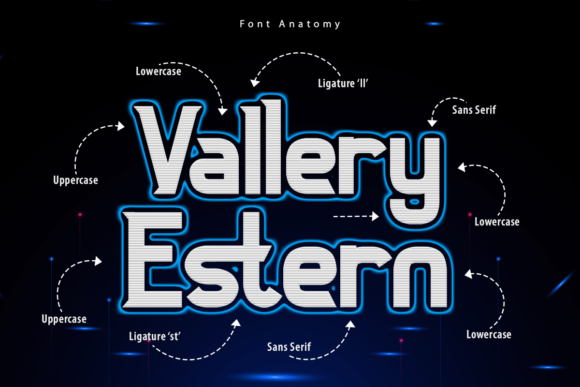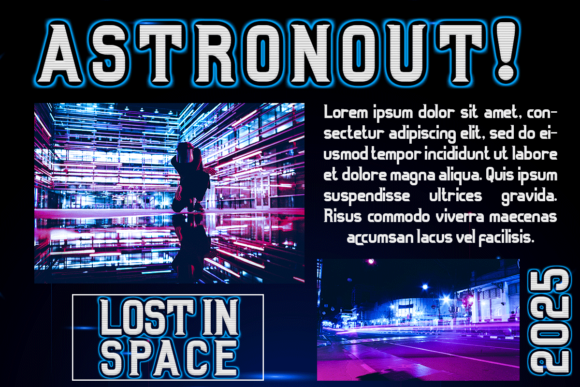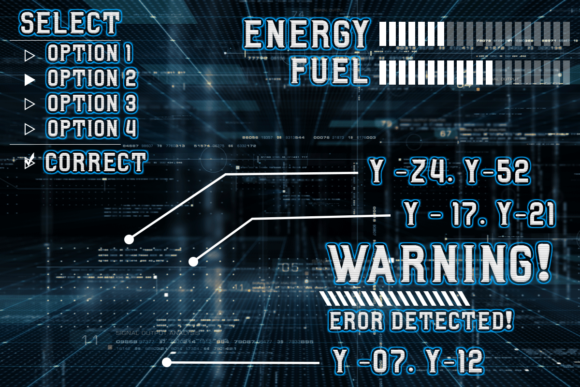
The Power of Typography: Unleashing Your Design Potential
You’re scrolling through your social media feed, and you come across a bold, eye-catching headline that grabs your attention. It’s not just the message that’s striking, but the font itself – a confident, dynamic display font that screams ‘I’m here to make a statement!’. This is the kind of typography that stops you in your tracks and makes you wonder, ‘How can I bring that level of style and sophistication to my own designs?’
Meet the Dexo Font, a cool and bold display font that’s designed to add tons of stylish character to your designs. Whether you’re a seasoned designer or just starting out, this font is a valuable addition to your toolkit. With its strong, confident aesthetic, Dexo Font is perfect for making a lasting impression and taking your designs to the next level.
Dexo Font Key Features
- Font Family: Dexo Font is a modern sans-serif font with a unique blend of elegance and minimalism.
- Unique Characteristics: Dexo Font features a distinctive x-height and a subtle, rounded edge, giving it a friendly and approachable feel.
Dexo Font Review
Overall, I was impressed with the Dexo Font. Here are some of the things that I liked:
- ✨ Unique Character**: Dexo Font has a distinct character that makes it stand out from other fonts. It’s a great choice for designers who want to add some personality to their designs.
- ✨ High Legibility**: The font is highly legible, making it easy to read even at small font sizes. This is a must-have for any font in my book.
- ✨ Good Versatility**: Dexo Font can be used for a variety of purposes, from headings to body text. It’s a great all-around font that can be used in a wide range of designs.
However, there are a few limitations to the Dexo Font:
- ⚠️ Limited Language Support**: Dexo Font doesn’t support a wide range of languages, which may be a problem for designers who need to create content in multiple languages.
- ⚠️ Not Suitable for Small Text**: While Dexo Font is highly legible, it’s not the best choice for small text. It can become pixelated and difficult to read at very small sizes.
Overall, I think Dexo Font is a solid choice for designers who want a unique and highly legible font. While it has its limitations, I think it’s a great addition to any font collection.
Tips for Getting the Most Out of Dexo Font
To get the most out of Dexo Font, use it in designs where a clean and modern aesthetic is desired. This font is particularly effective in headings and titles. Experiment with different font sizes and combinations to create visually appealing designs.
Dexo Font is commonly used in modern branding, digital signage, and print materials. It is also used in web design and user interface (UI) elements. The font’s clean lines and modern feel make it well-suited for a variety of applications.